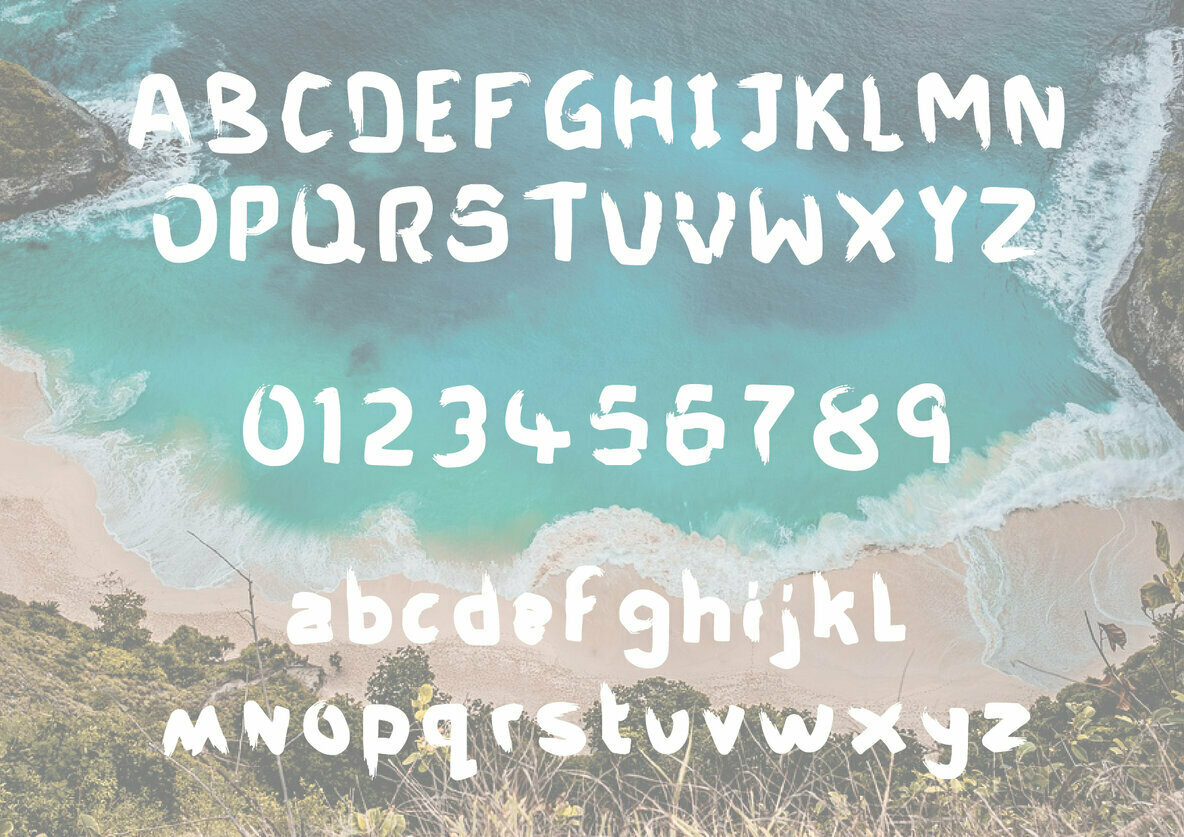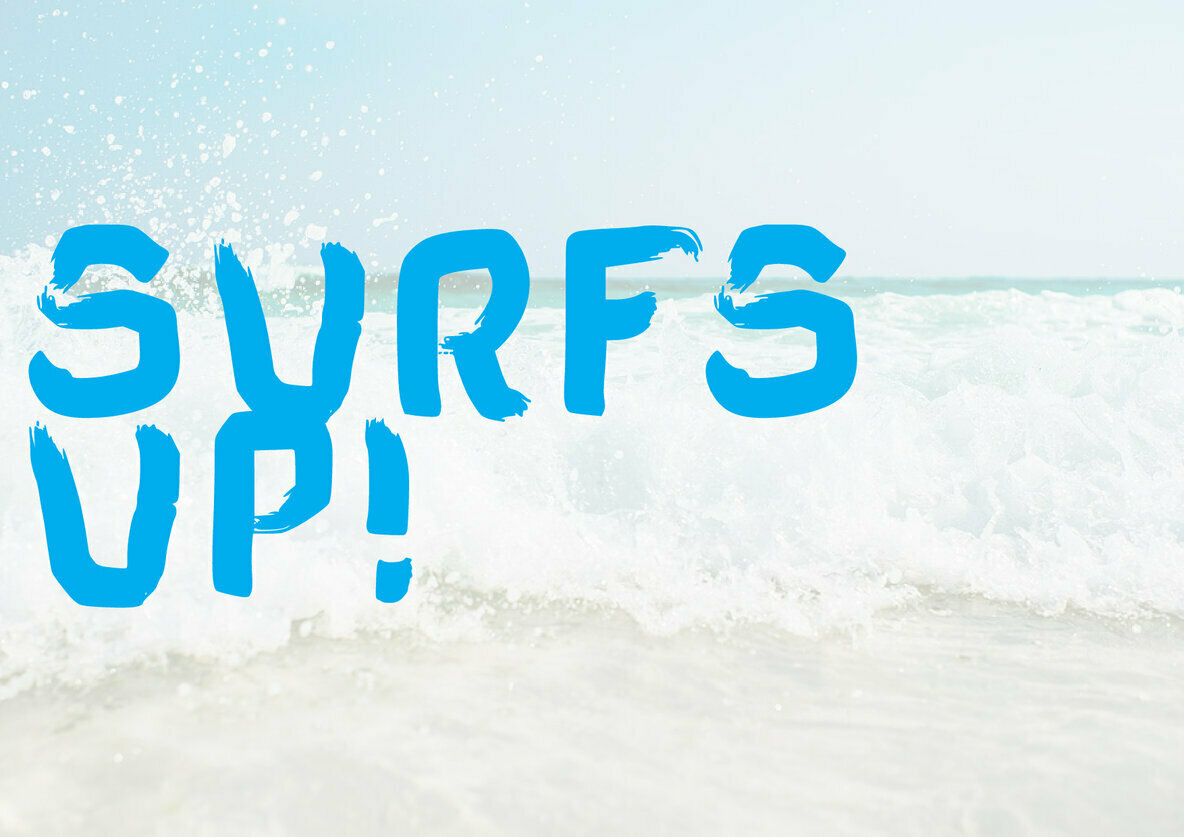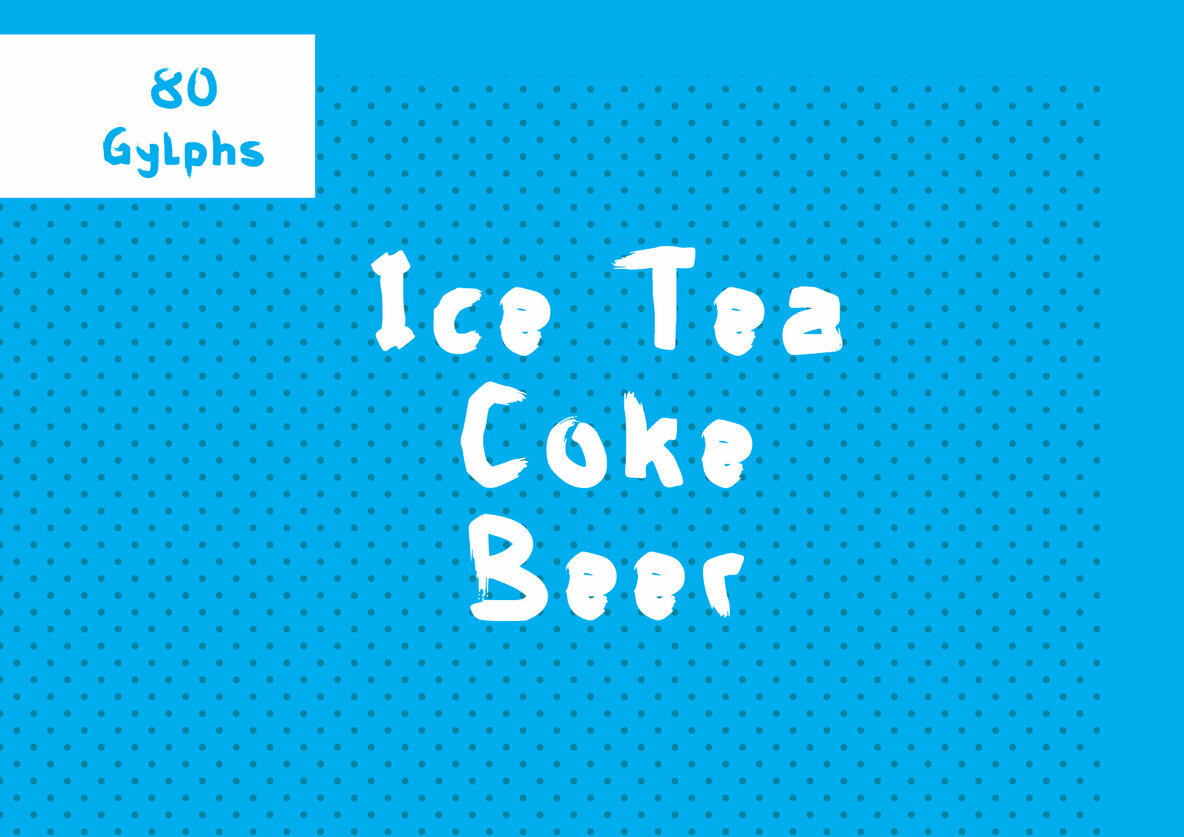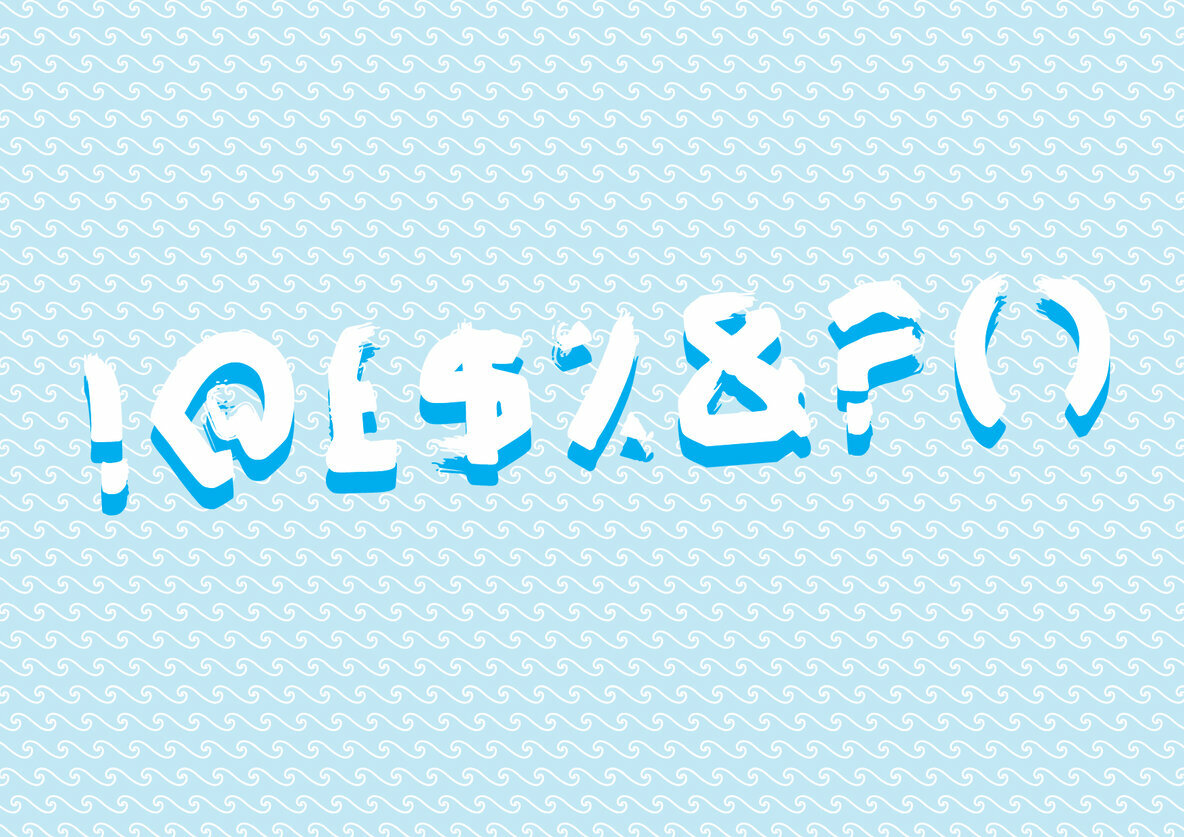
My Beach Shack Font
My Beach Shack
My Beach Shack is a relaxed brush font that is super laid back. Created by hand with the sea, sand and sun in mind.